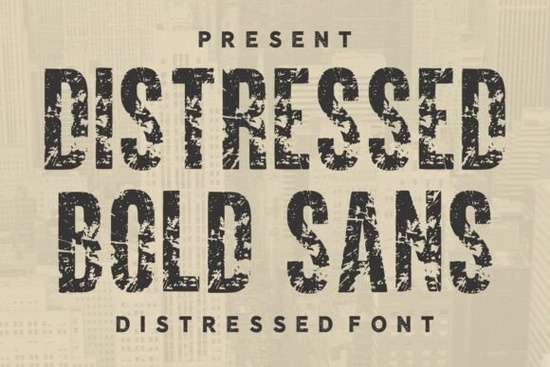
If you need a bold, weathered display typeface that looks like it has been through a few decades of use, Distressed Bold Sans is exactly what you are looking for. This condensed sans serif font comes with a heavy, worn texture that gives any headline an instant vintage or grunge character. It works well for posters, branding, apparel, and any project where you want raw, industrial energy.
What makes Distressed Bold Sans different from other bold fonts?
Most bold sans serifs feel clean and modern. Distressed Bold Sans takes the opposite approach. The letterforms are thick and compact, but they show signs of wear like scratches, rough edges, and uneven ink patches. That texture is what makes it stand out. Instead of looking like a digital creation, this font feels like something you might find on an old warehouse sign or a beat-up concert flyer.
It is a display font, meaning it is meant for large sizes like headlines, titles, and logos. You won't want to use it for long paragraphs of body text, but for grabbing attention, it does the job better than most clean fonts.
How can I use Distressed Bold Sans for vintage branding?
This font is a natural fit for any brand trying to create a retro or handcrafted look. Here are a few ways designers and small business owners are using it:
- Brewery labels – the gritty texture matches the raw, craft feel of small-batch beer brands.
- Vintage-style advertisements – combine it with sepia tones and worn paper backgrounds.
- Industrial or outdoor brands – think hardware stores, woodworking, or workwear companies.
- Music posters – perfect for metal, punk, or rock band gig posters.
To get the most out of the distressed effect, pair it with simple layouts and avoid cluttering the design. High contrast – like black text on a white or off-white background – lets the texture shine. You can also layer it over Hoopsy or similar script fonts for a nice headline-and-detail combination, but keep the distressed font as your main hero.
Is Distressed Bold Sans good for print-on-demand apparel?
Yes, and this is one of its strongest use cases. Print-on-demand sellers know that bold, textured text sells well on t-shirts, hoodies, and hats. The worn quality gives the design a natural, screen-printed feel right from the start. You can place a single strong word like “STRENGTH” or “VINTAGE” across a shirt chest and the texture will make it look authentic.
For street-style graphics or urban apparel, try pairing it with a heavy outline or overlapping effect. It also works well with the bold, playful feel of Reaktion Kids Bold if you want a mix of rough and friendly styles.
How do I pair Distressed Bold Sans with other fonts?
Because Distressed Bold Sans is so strong and textured, you need a clean counterbalance. Good pairings include simple sans serifs for subheadings or body text. For example, try Senior – a clean, bold display font that matches the weight but not the wear – for secondary text. If you want a more distressed look across the board, check out Broken Rudder for a complementary weathered style.
For contrast, you can pair Distressed Bold Sans with a delicate script or a slim serif. Just keep the distressed font as the main attention-grabber and use the other for supporting roles.
Practical checklist for using Distressed Bold Sans
- ✔ Use it for headlines, logos, and large text only – not body copy.
- ✔ Apply it on textured backgrounds (paper, fabric, concrete) for maximum effect.
- ✔ Keep layouts simple and high-contrast to highlight the worn texture.
- ✔ Pair it with a clean font for readable secondary text.
- ✔ Try it on t-shirts or hoodies for instant vintage apparel designs.
Distressed Bold Sans gives you that rough, honest look without spending hours manually adding grunge. Open your design software, throw a word on the canvas, and see how much character one font can bring.